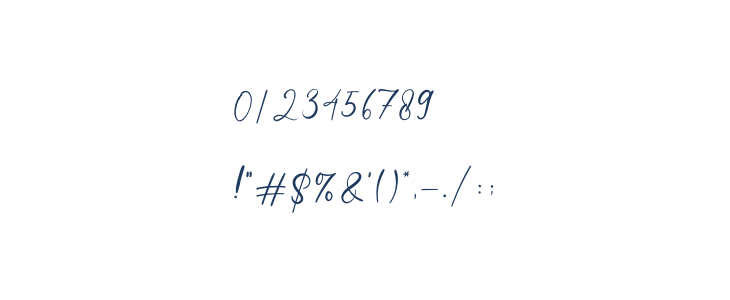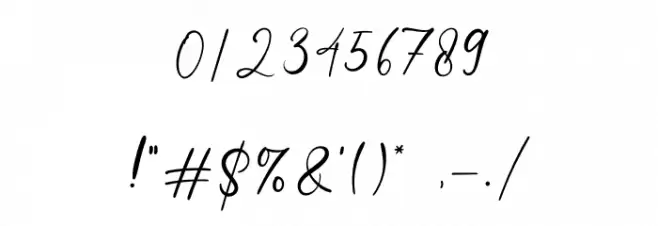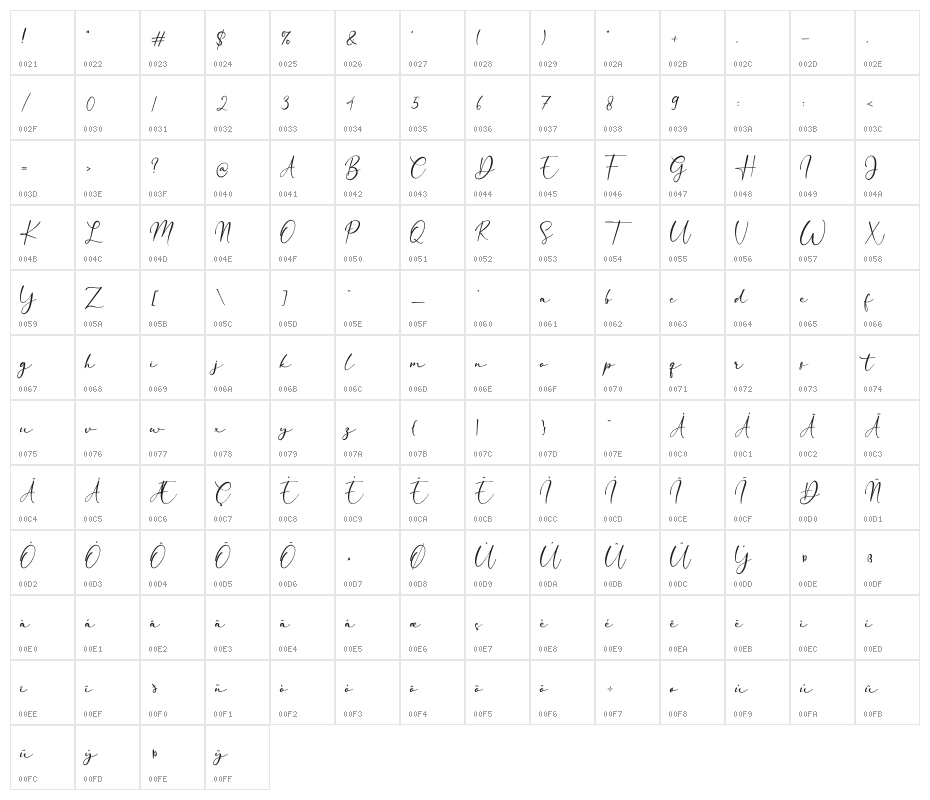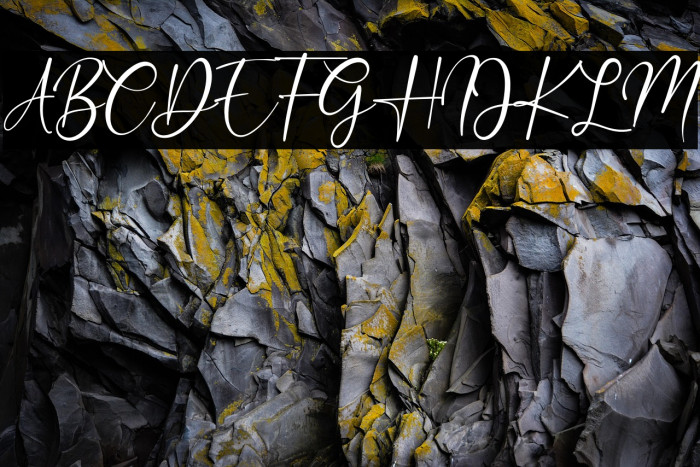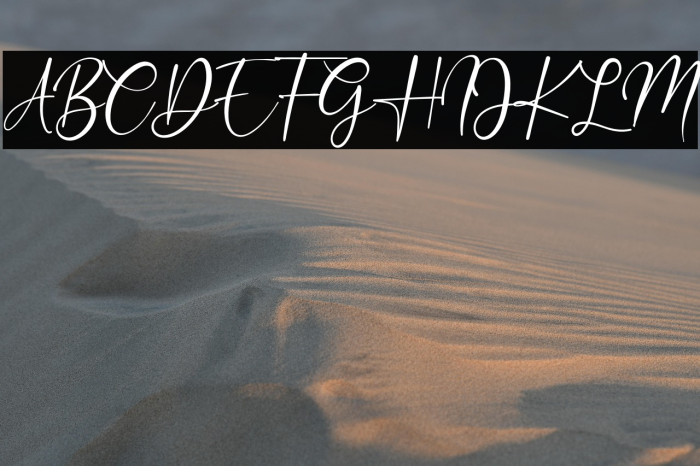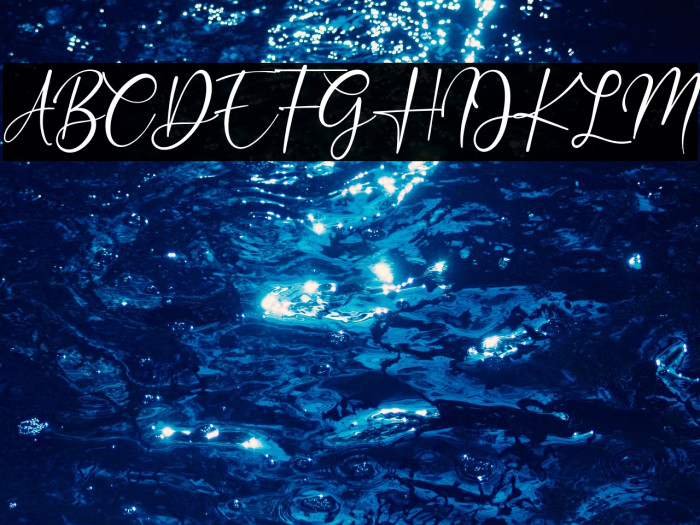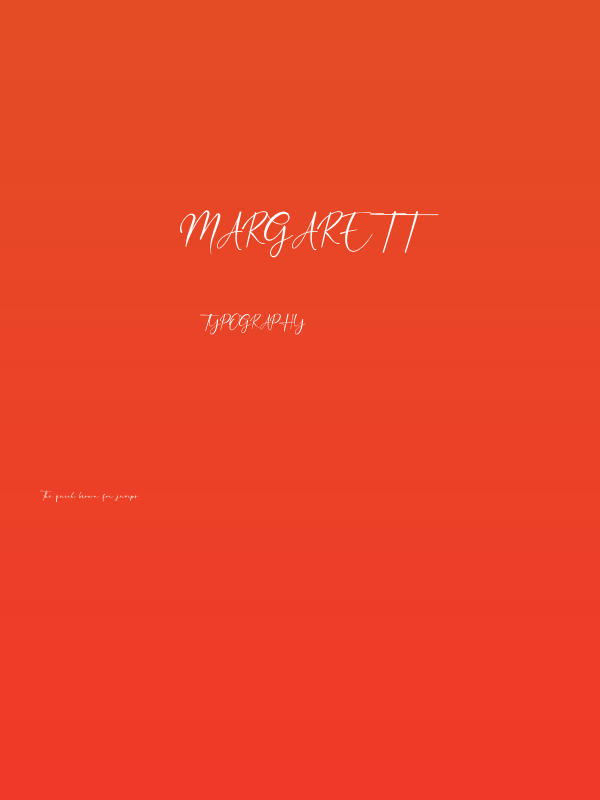
Margarett Font
Margarett Description
This elegant script font features a flowing, cursive style with a modern touch. The uppercase letters are characterized by sweeping curves and loops, giving them a graceful and sophisticated appearance. The lowercase letters maintain a consistent flow, with smooth connections between each character, enhancing readability while preserving the font's decorative nature. The numerals are styled to match the overall script aesthetic, providing a cohesive look across all characters. Special characters are thoughtfully designed to complement the font's elegant style, making it suitable for a variety of creative applications.